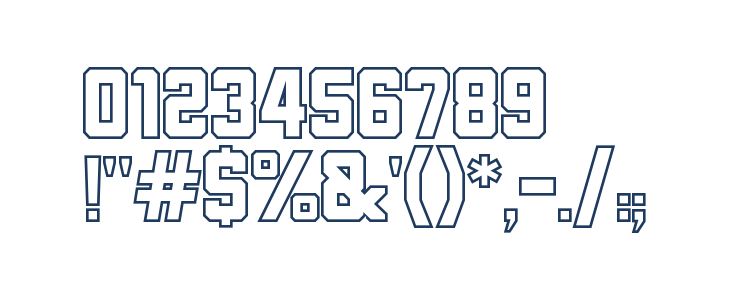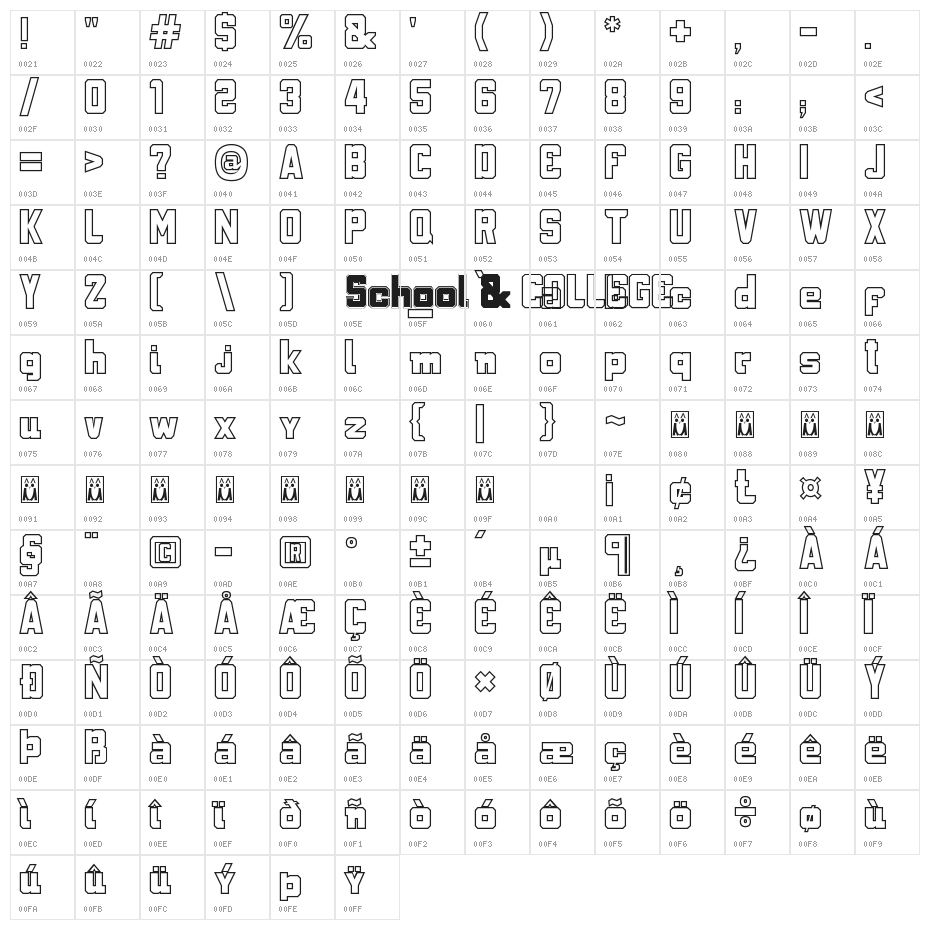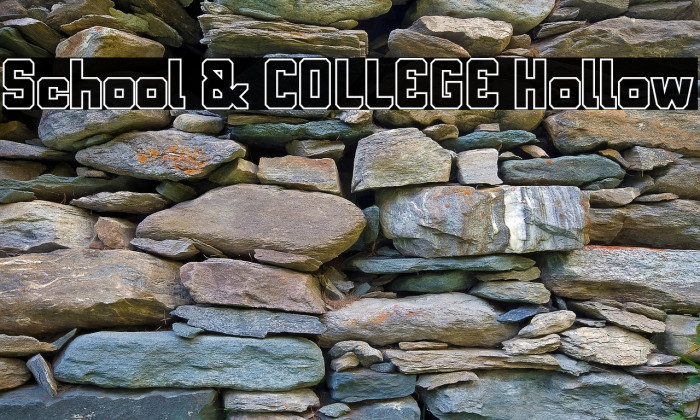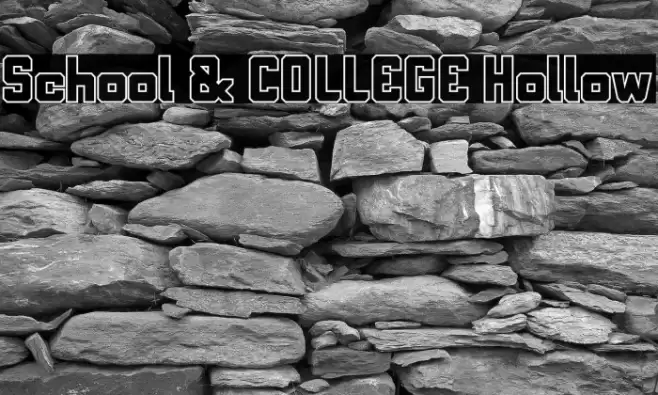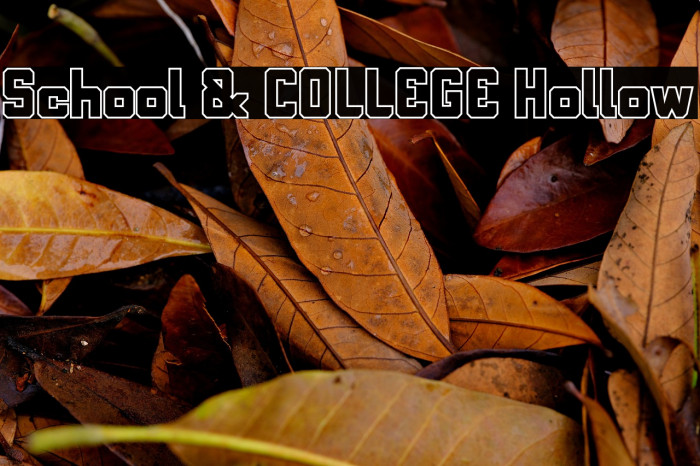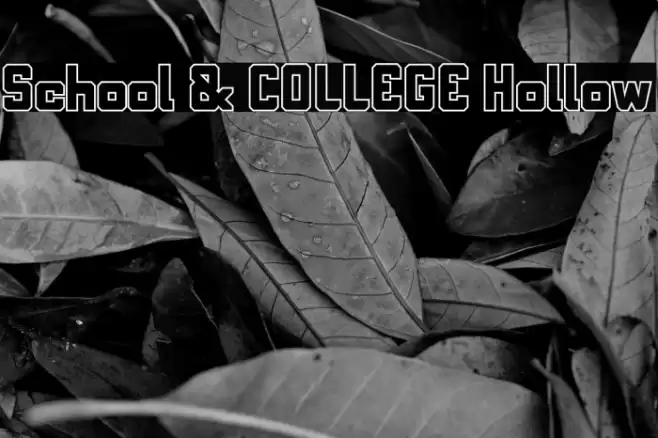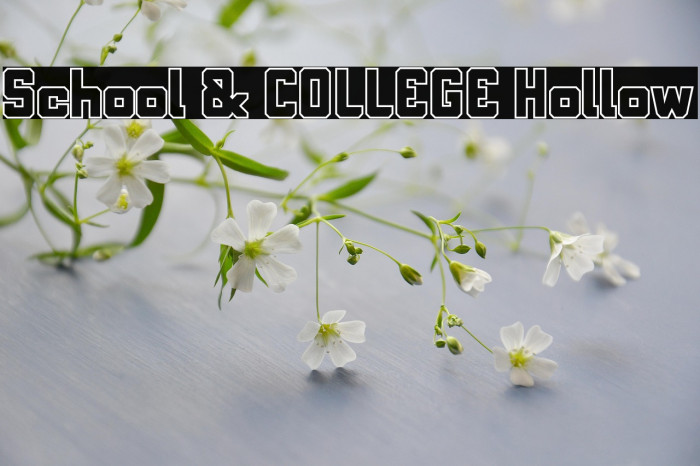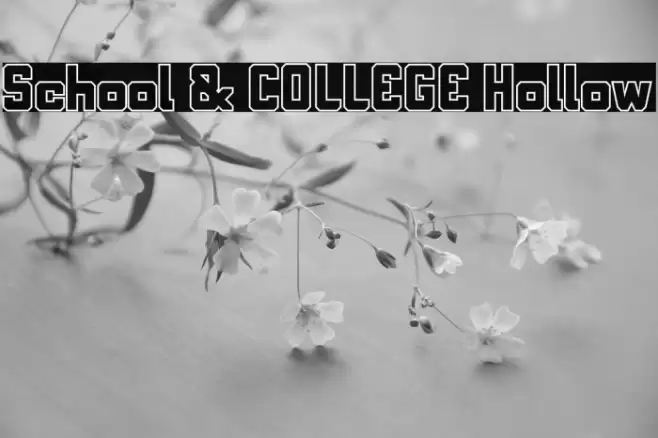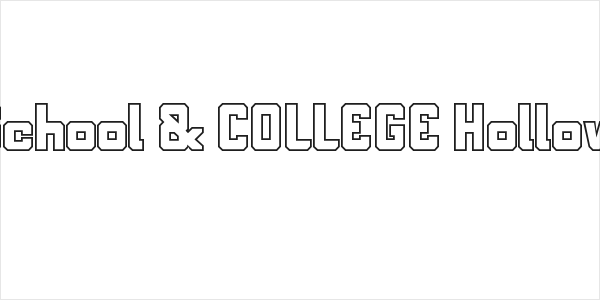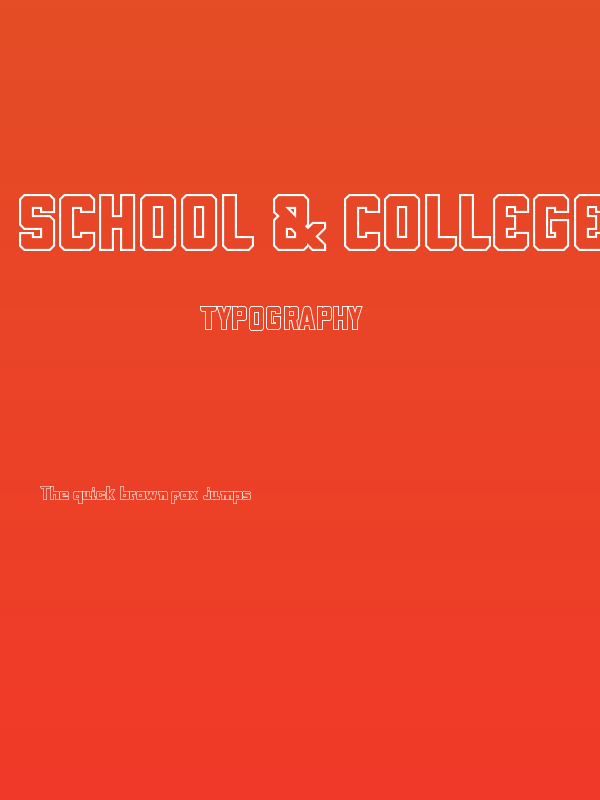
School & COLLEGE Hollow Font
School & COLLEGE Hollow Description
This font features a bold, hollow design with a strong, collegiate aesthetic. The uppercase and lowercase letters are uniformly structured, maintaining a consistent width throughout. The characters have a geometric, block-like appearance, which is accentuated by the hollow interior, giving them a distinct, outlined look. The numbers and special characters follow the same design principles, ensuring a cohesive appearance across all glyphs. This font's style is reminiscent of traditional varsity or sports team lettering, making it ideal for projects that require a bold and impactful visual presence.
| Proposed Projects | Ideal for sports team branding, school event posters, merchandise designs, and any project requiring a bold, impactful typeface. |